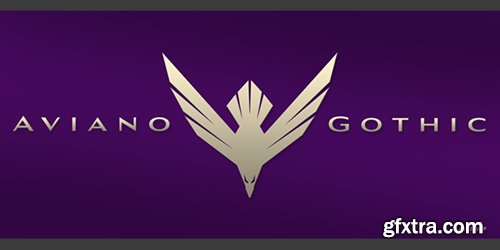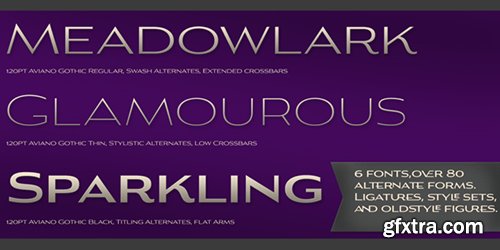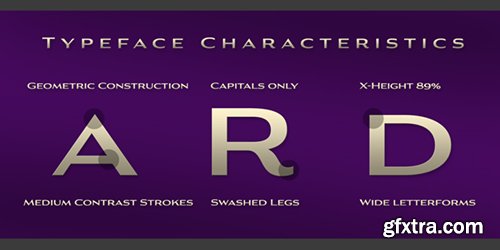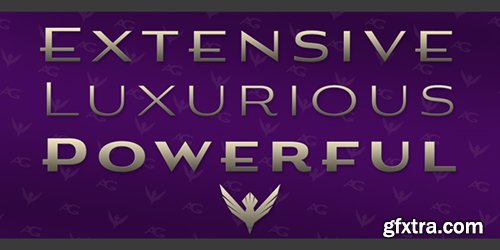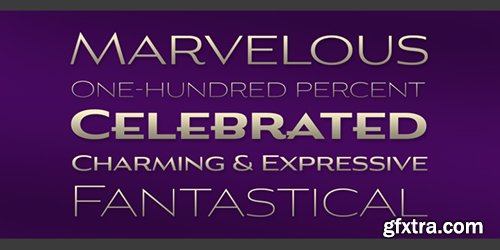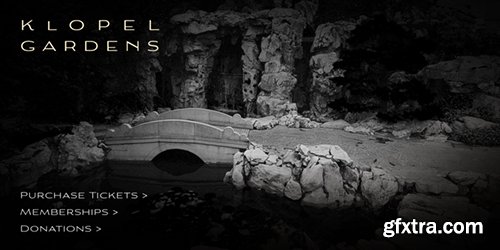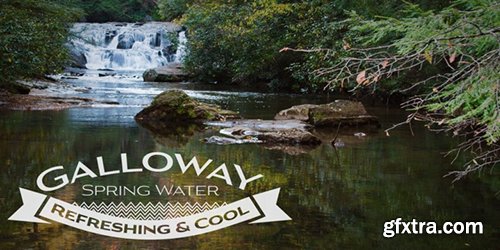
The Aviano collection returns, refined into a new, mid-contrast sans-serif inspired by the design and style of early 1900ís American engravers. Engravers would meticulously carve lettering into copper plates for printing, and often these letters, for more impact, would be extended and only utilize capitals. While taking inspiration from the past, Aviano Gothic is distinctly one-of-a-kind, and is not a revival, but instead is based on the structure of pre-existing Aviano type families for interchangeability and interoperability. Aviano Gothic has been diligently honed to be sinuous and seductive, making it great for high-end work such as including jewelry, beauty, and other luxury products.The full Aviano Gothic family presents you with six distinct weights and is full of OpenType options. Available with the face are deco alternates for replicating inscriptions and signage of the í20s and í30s. Style sets are offered, together with four full sets of art deco-inspired alternates, swashes, and titling, in addition to an expansive range of other alternates to help ìunique-ifyî your layouts. Aviano Gothic also features forty discretionary ligatures for inventive typographic compositions. Begin planning your work with Aviano Gothic by looking at these options in the instructive .pdf brochure.OpenType-able applications, including Quark or the Adobe suite, allow for the comprehensive benefit of the ligatures and alternates. This typeface also features the glyphs to aid a broad number of languages.